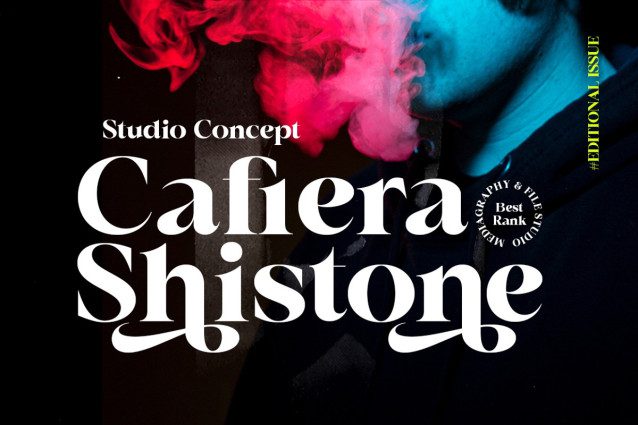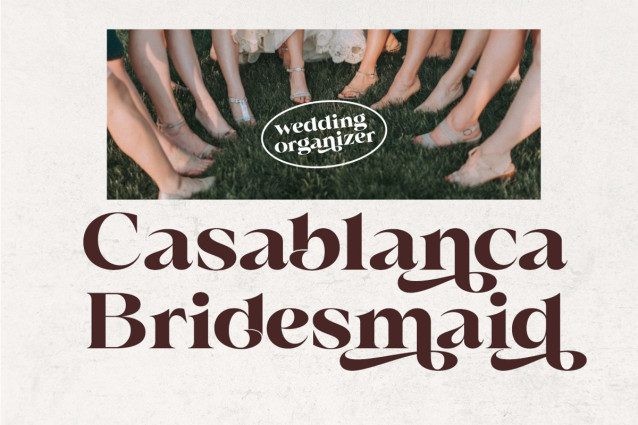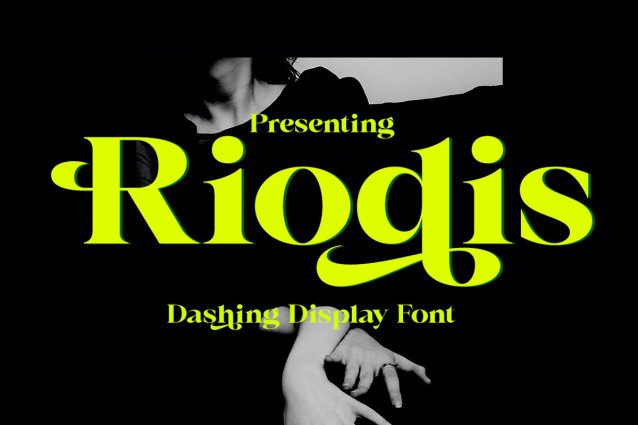
Riodis Font
Riodis Font is a serif font with a luxurious, elegant, modern, unique and classy appearance. This font is specially created for luxury themed projects, branding projects, Magazines, Social Media, Branding, Logos, website headers or simply as a stylish text overlay on any background image.and many more that require a luxurious touch. . Riodis includes a complete set: .Swash .The binding place .Discretionary ligatures Uppercase and lowercase letters .Multilingual characters .Number .Punctuation